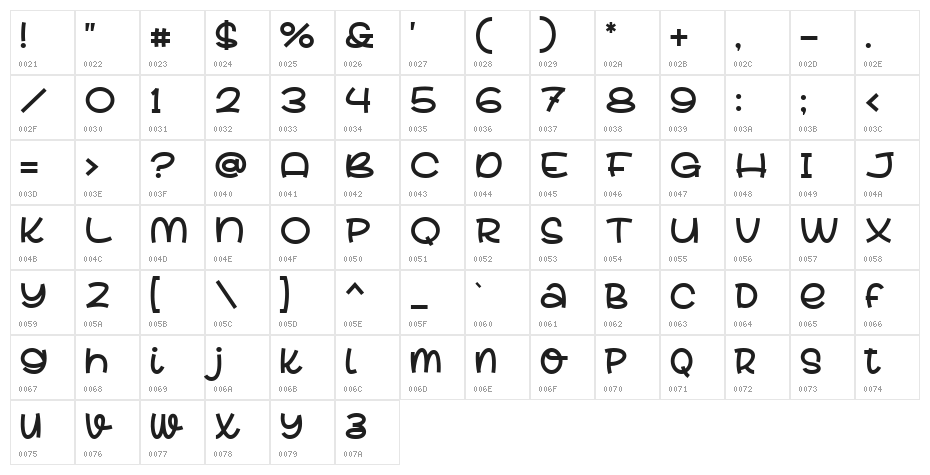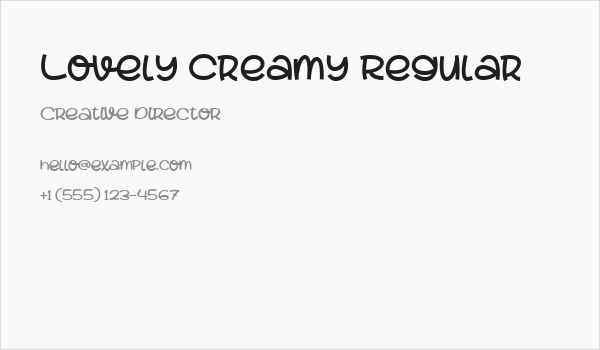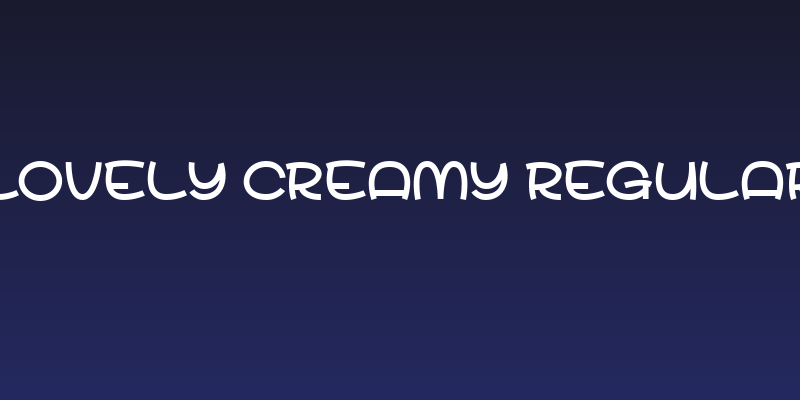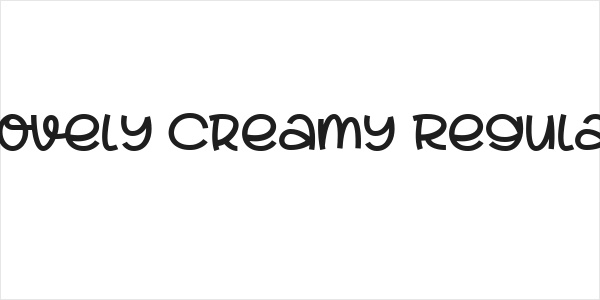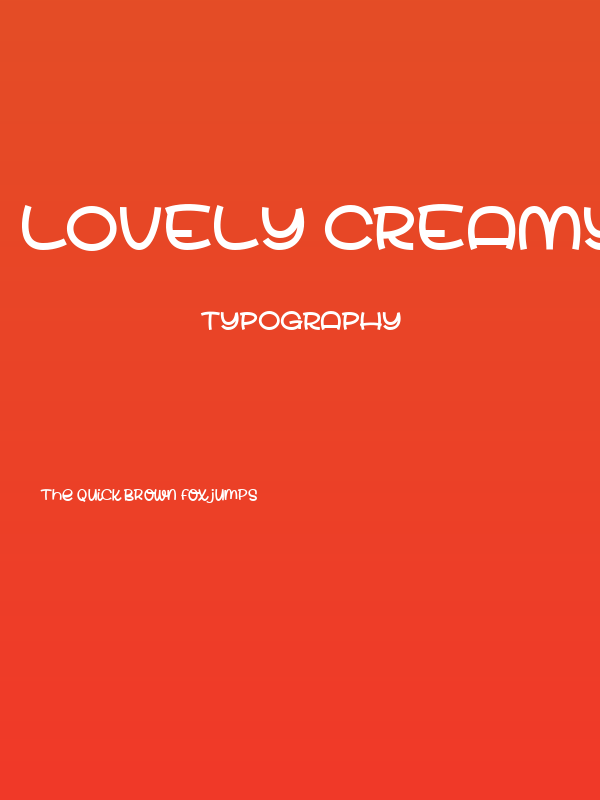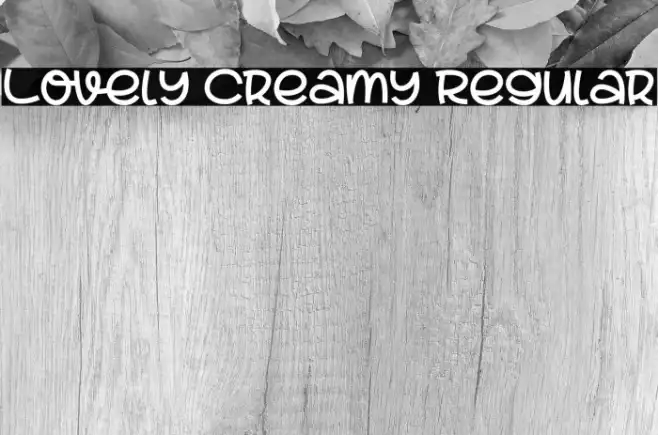
Lovely Creamy Regular Font
Lovely Creamy Regular Description
This font features a playful and whimsical style with rounded, smooth curves and a consistent stroke width. The characters exhibit a friendly and approachable appearance, making it suitable for designs that aim to convey warmth and creativity. The uppercase and lowercase letters maintain a uniform height, enhancing readability while adding a touch of charm. The numerals and special characters are designed to match the overall aesthetic, ensuring a cohesive look across all text elements. Its unique style makes it stand out, yet it remains versatile enough for various applications.
| Proposed Projects | Ideal for children's books, playful branding, greeting cards, and creative posters. |